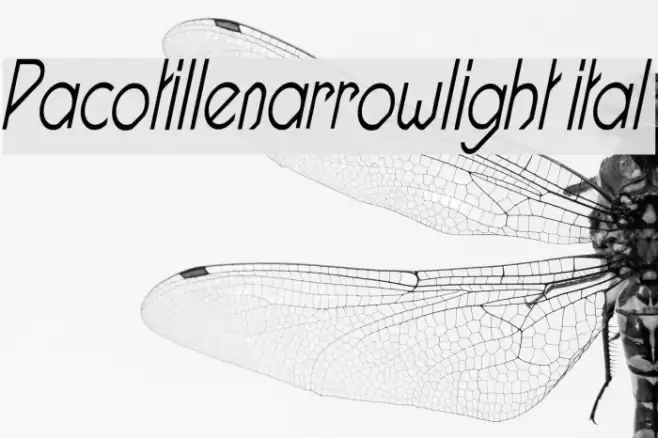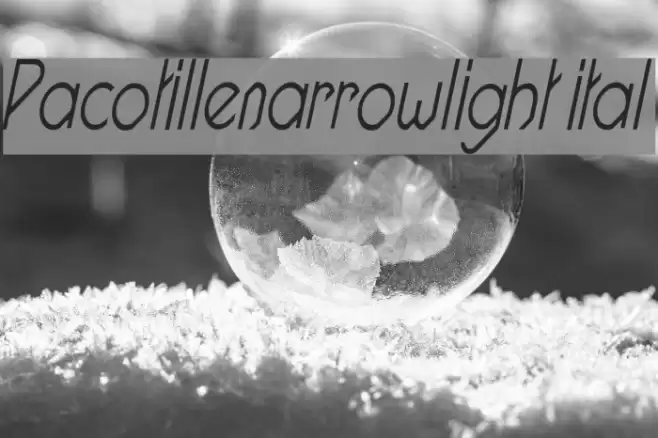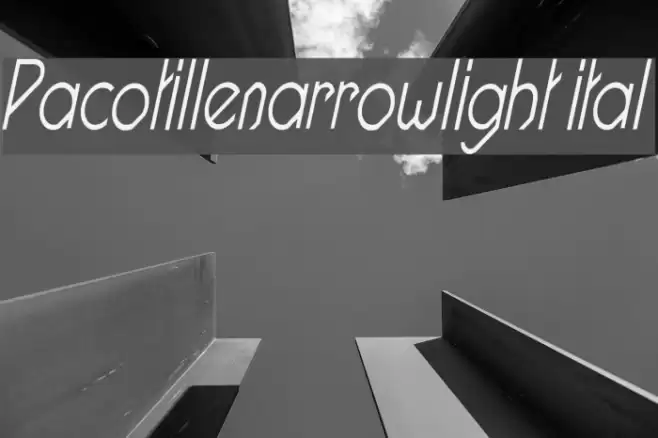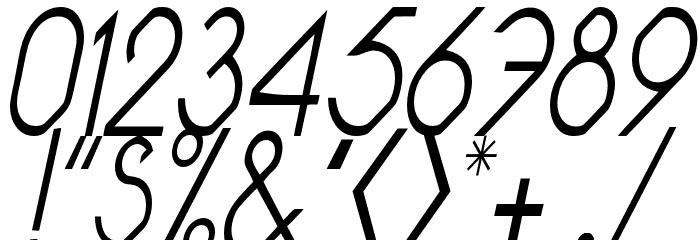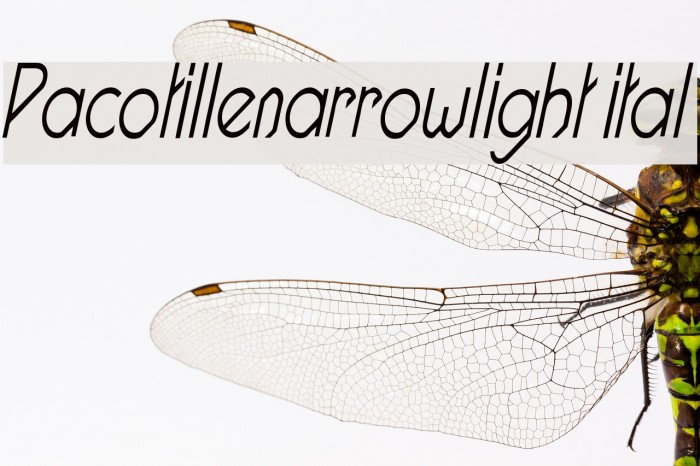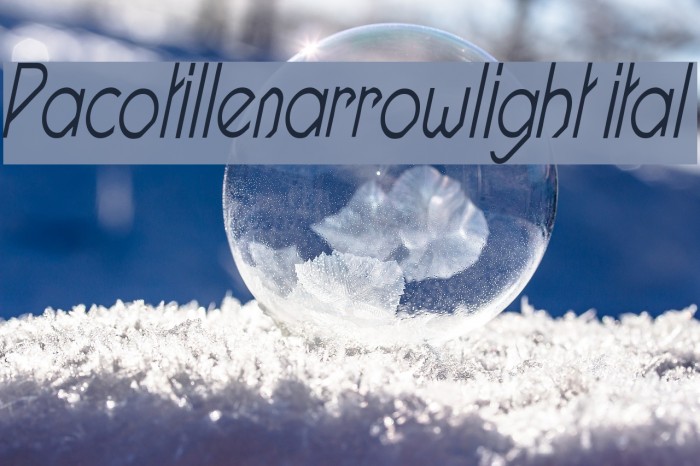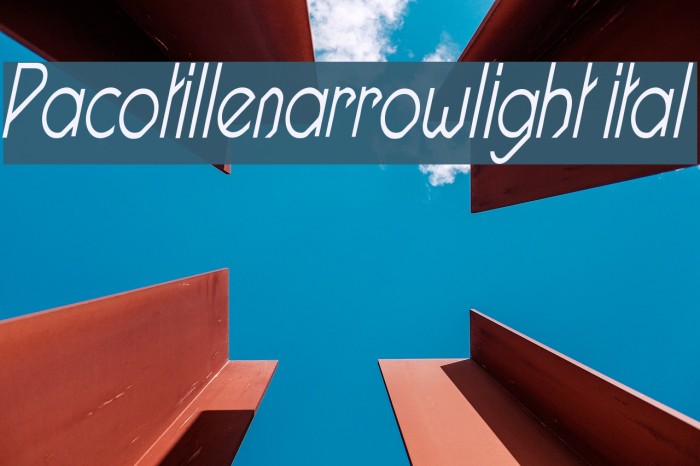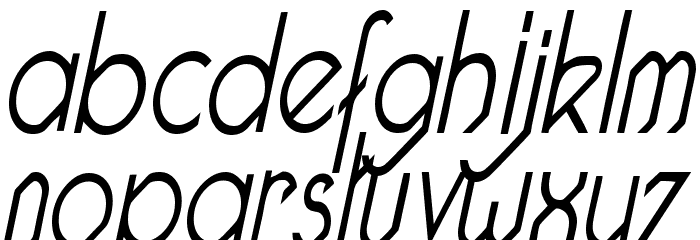
Pacotillenarrowlight ital Font
Pacotillenarrowlight ital Description
This font features a sleek and modern design with a narrow and elongated structure. The characters are italicized, giving them a dynamic and forward-leaning appearance. The strokes are light, contributing to an airy and elegant feel. The uppercase and lowercase letters maintain a consistent style, with smooth curves and sharp angles that create a sense of movement. The numerals are distinct and align well with the overall aesthetic, while the special characters add a touch of uniqueness. This font is well-suited for projects that require a contemporary and stylish look.
A sleek, narrow, and italicized font with a modern and elegant style from Uncategorized fonts.
- Proposed Projects: Ideal for fashion magazines, modern branding, and dynamic advertising campaigns.